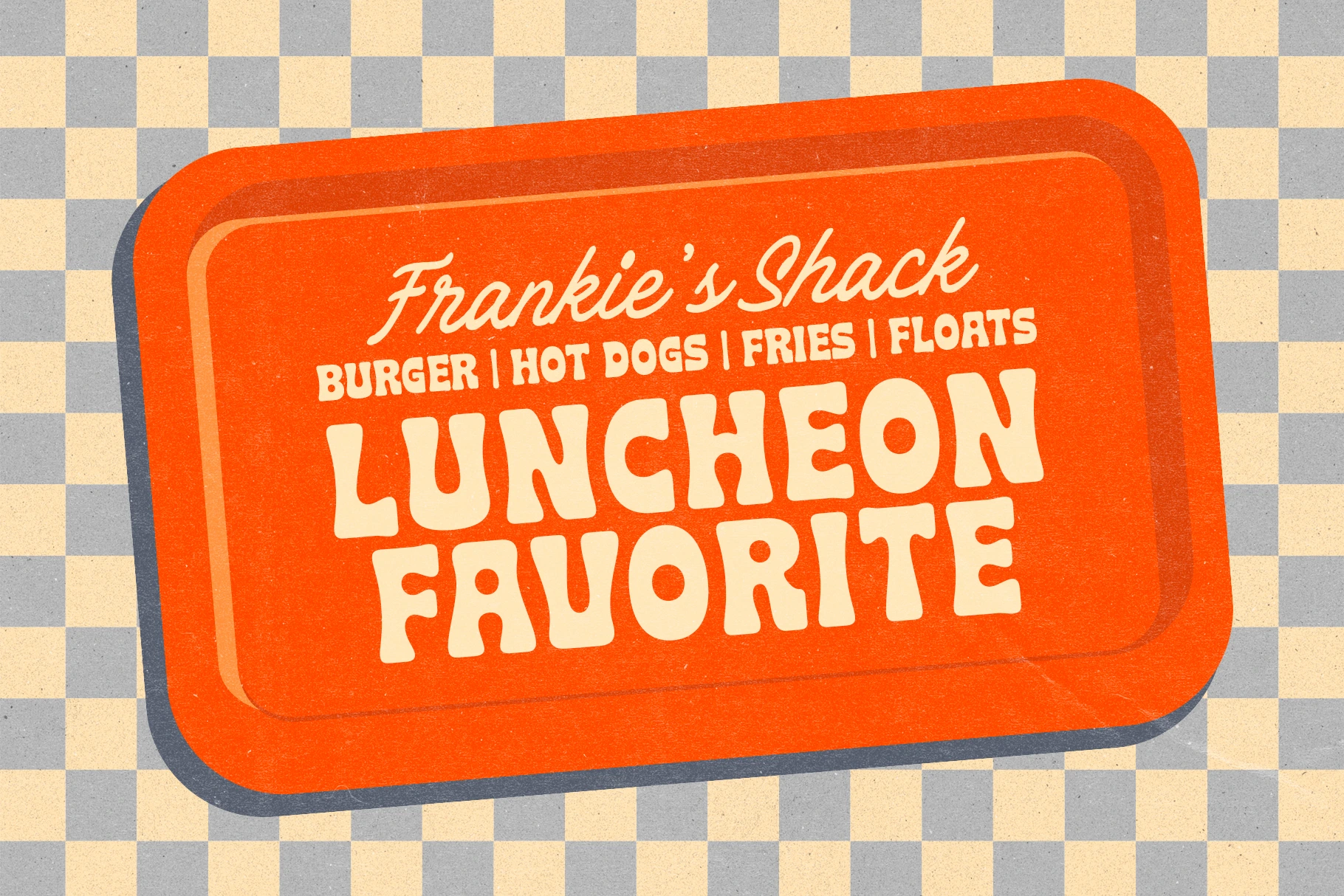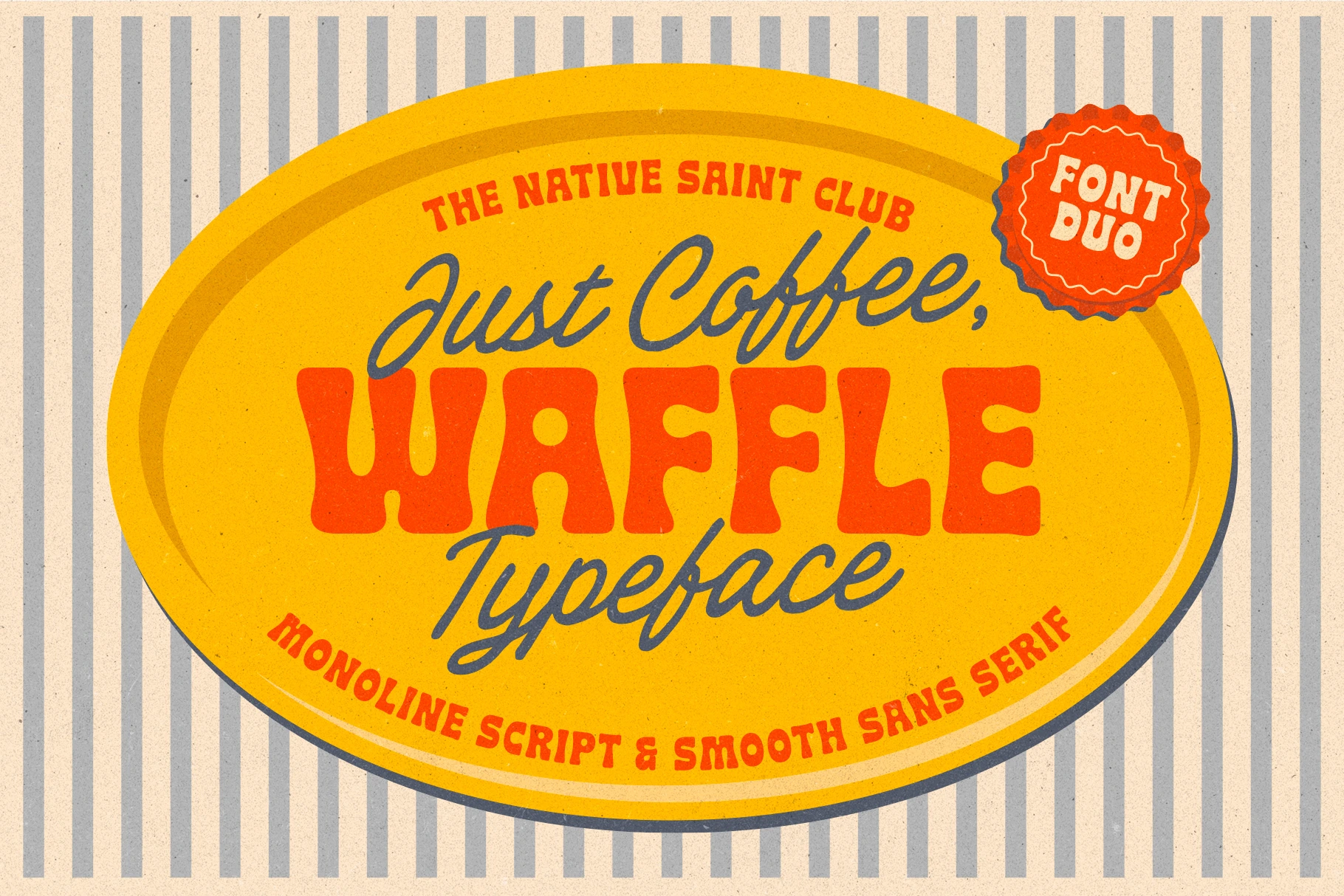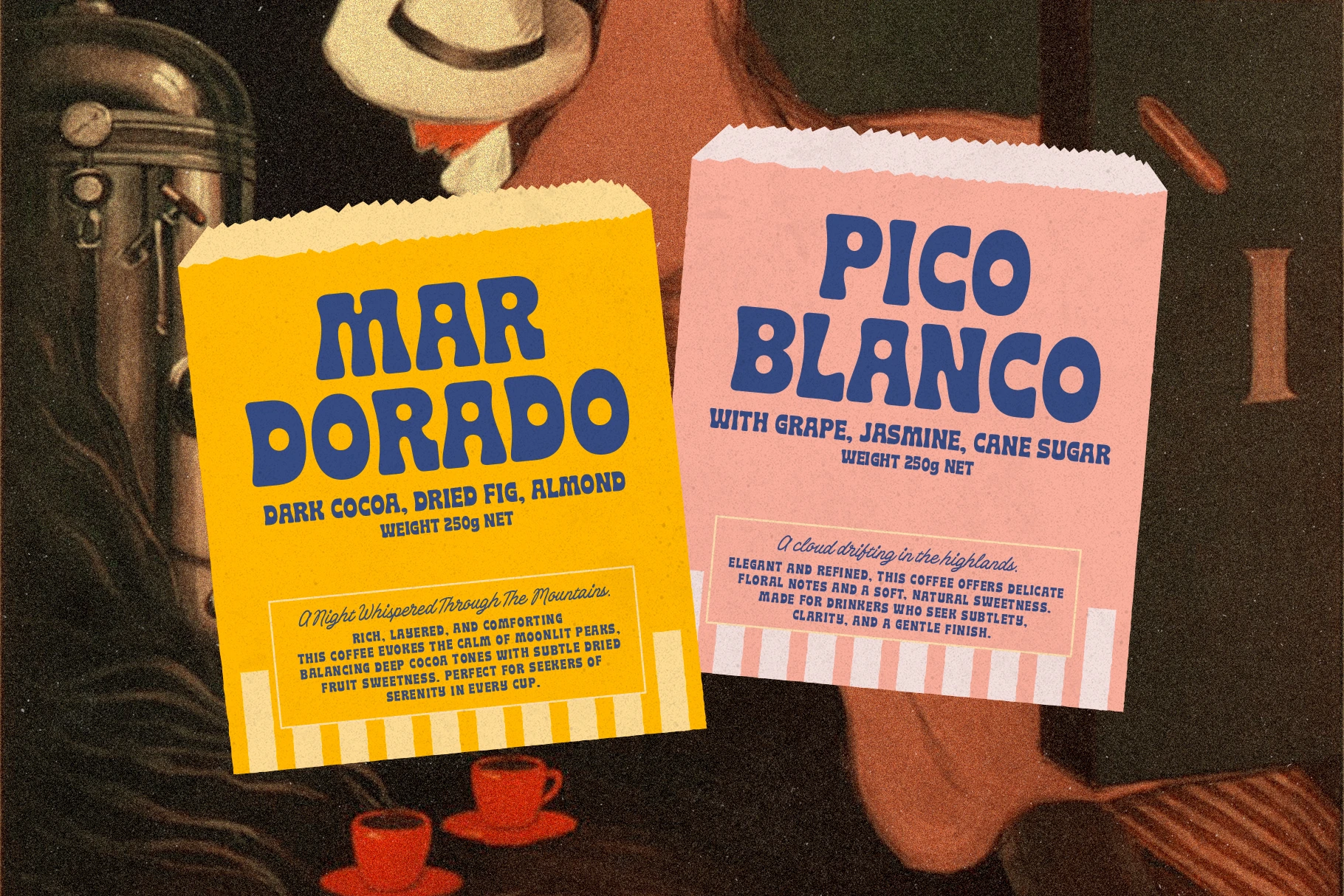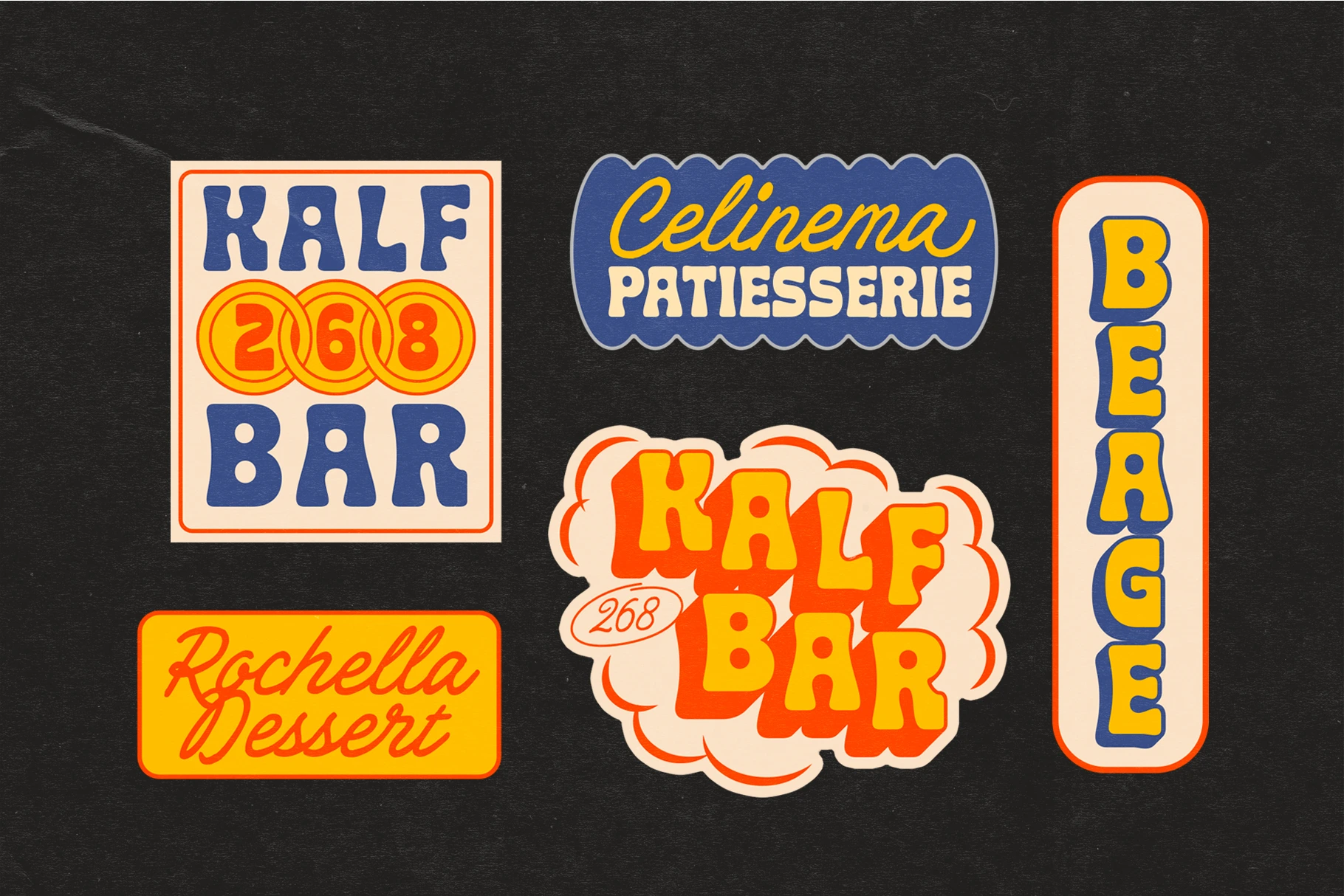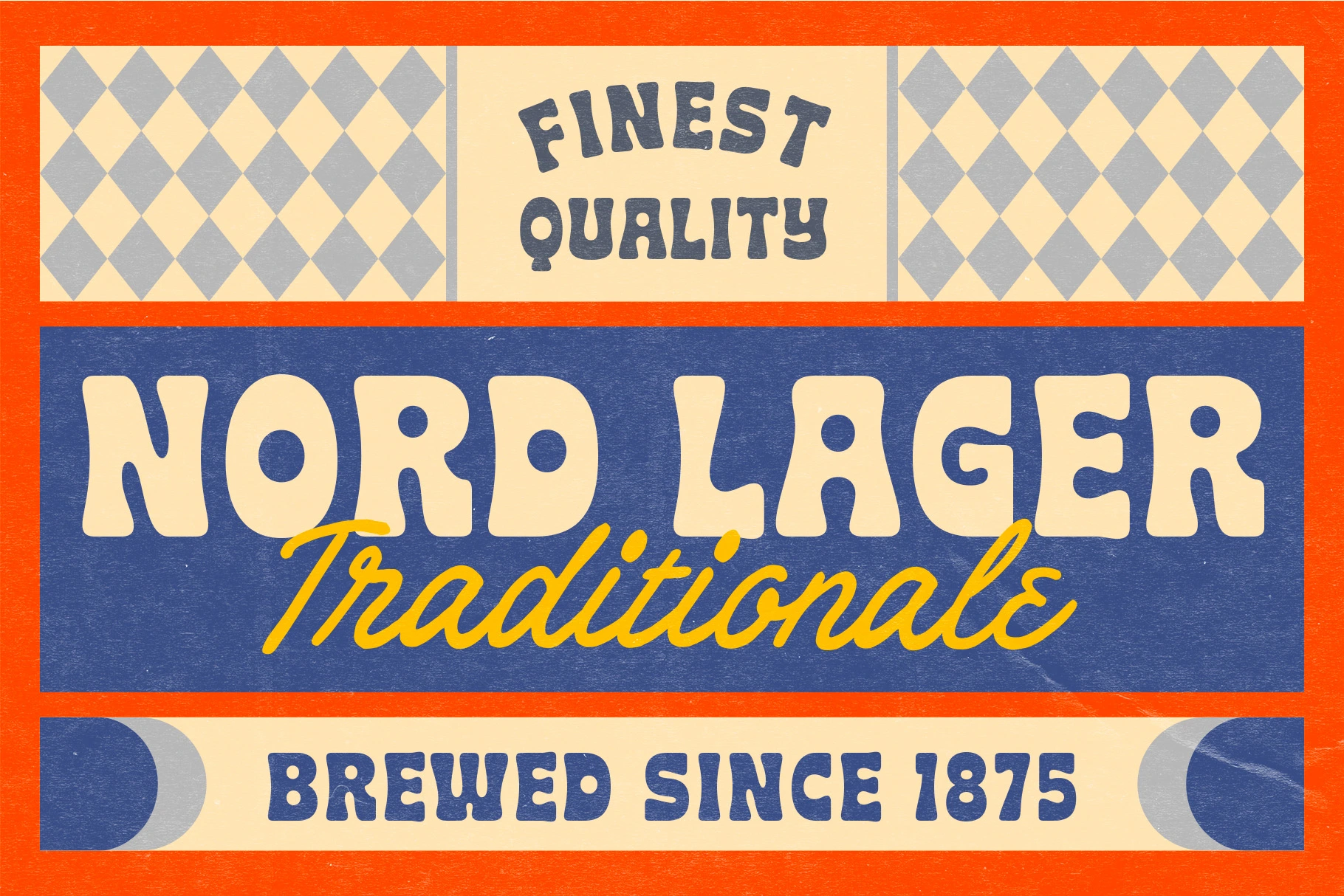
TNSC Coffee & Waffle, a playful yet versatile font duo that combines a smooth sans serif with a monoline script. Inspired by vintage coffee shops, classic diners, and bold retro packaging, this typeface brings warmth, character, and a touch of nostalgia to your creative projects.
Coffee & Waffle – Font Duo